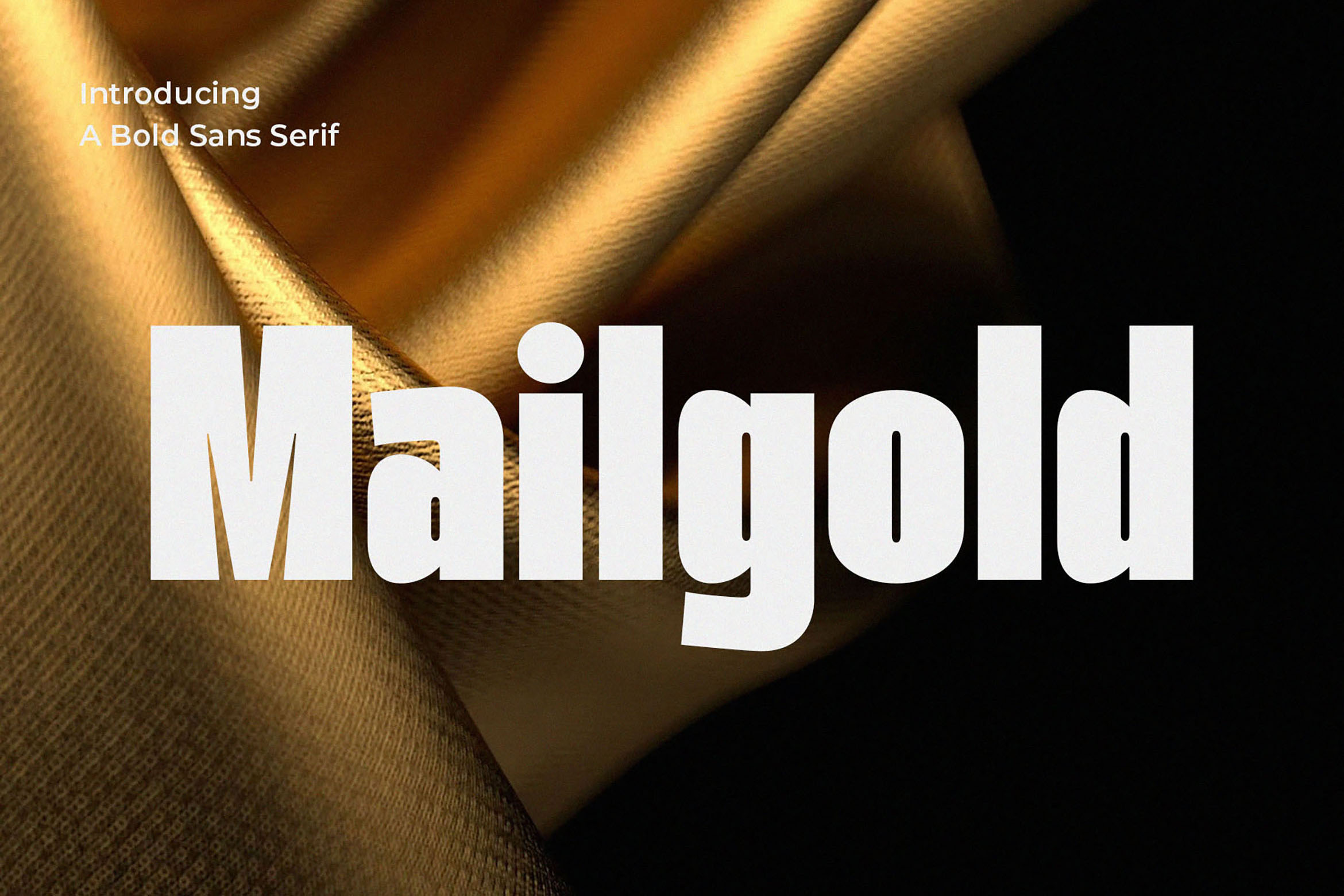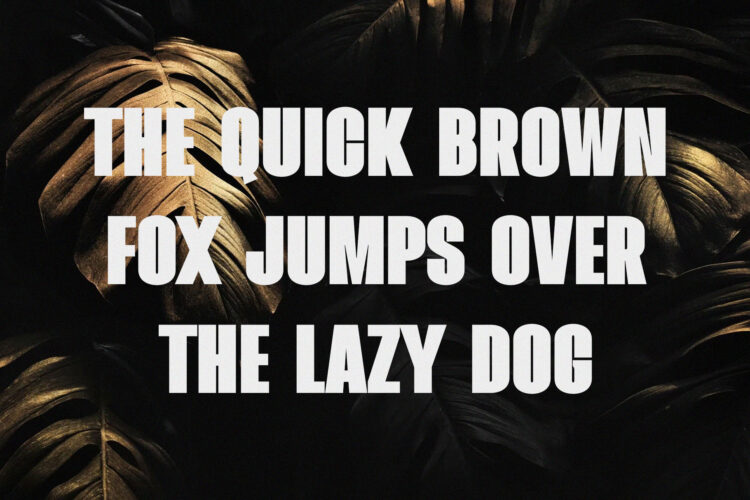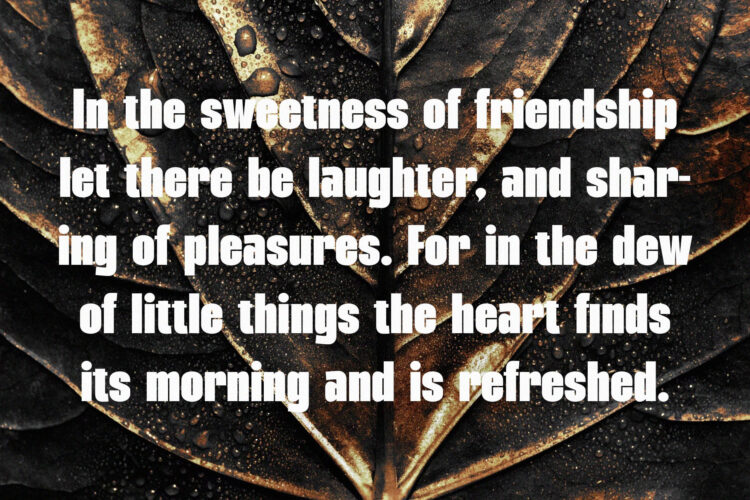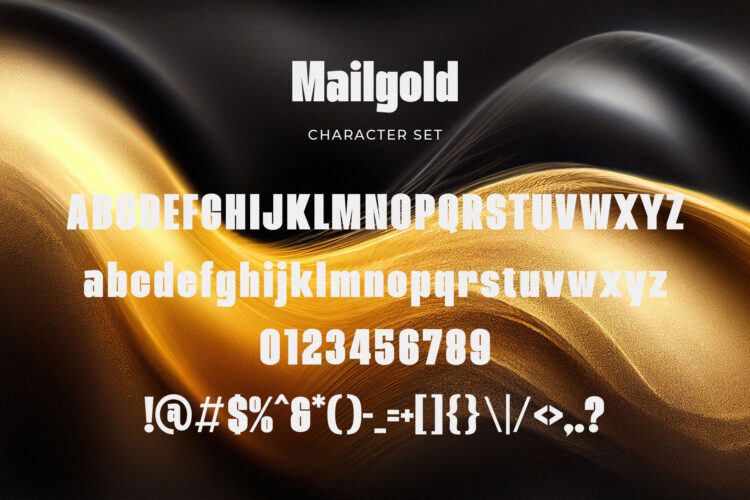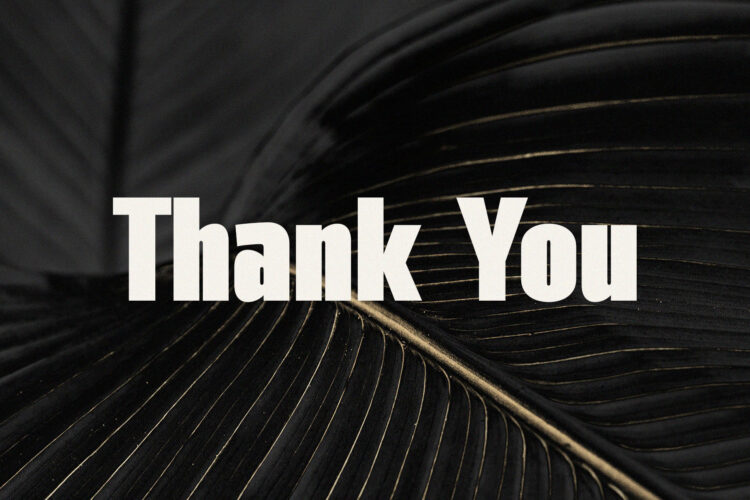
Introducing our new Mailgold, modern sans serif font with elegant style this is perfect for branding, logos, invitation, magazines, product packaging and more.
Mailgold – A Bold Sans Serif